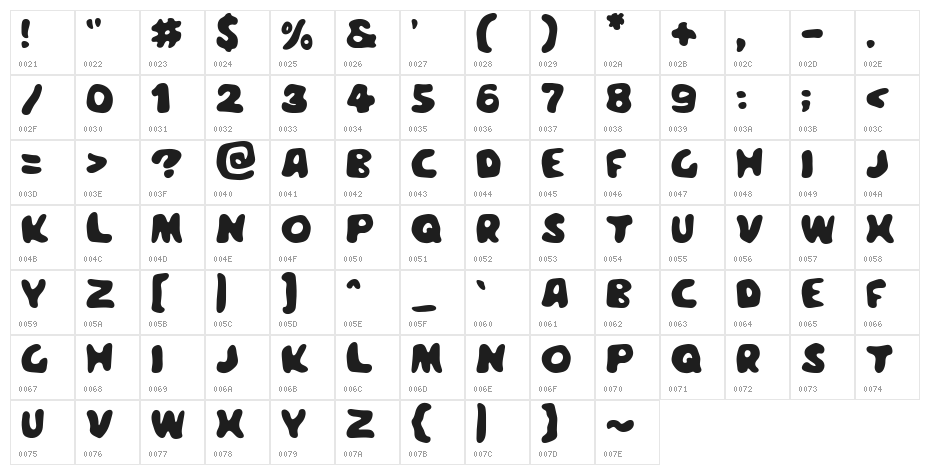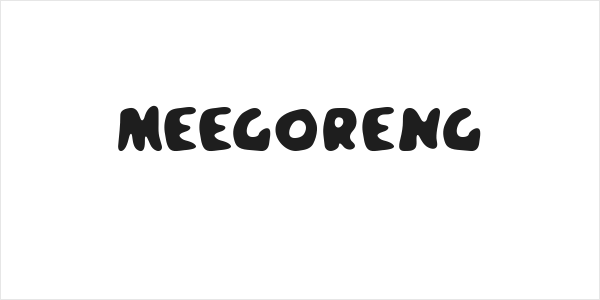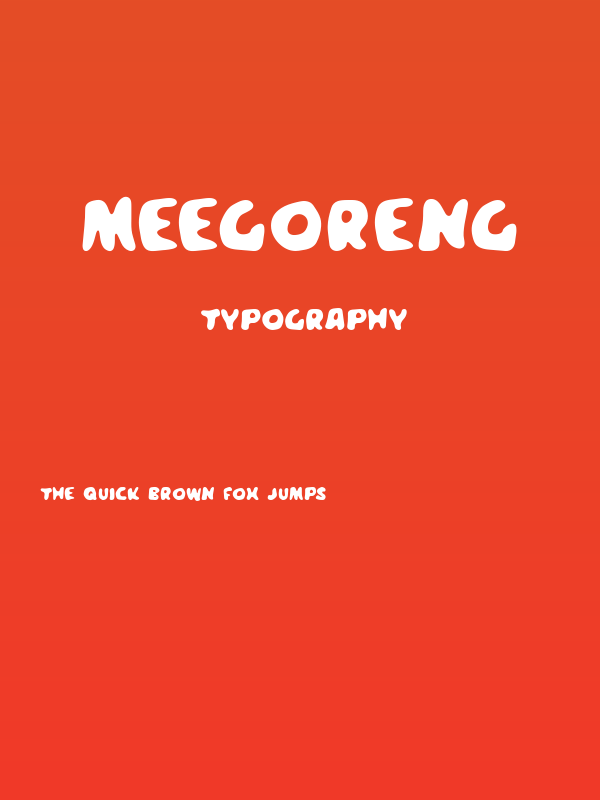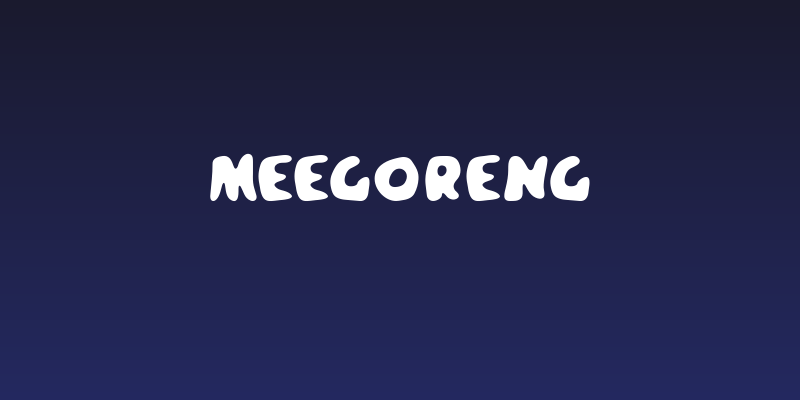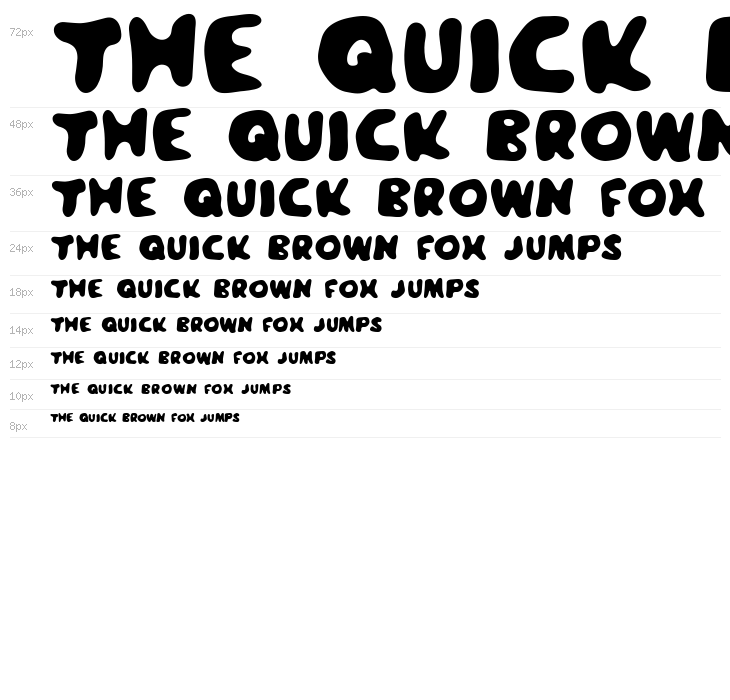
Meegoreng Font
| Stil general | Playful, Whimsical |
| Proiecte propuse | Ideal for children's books, playful branding, party invitations, and creative posters. |